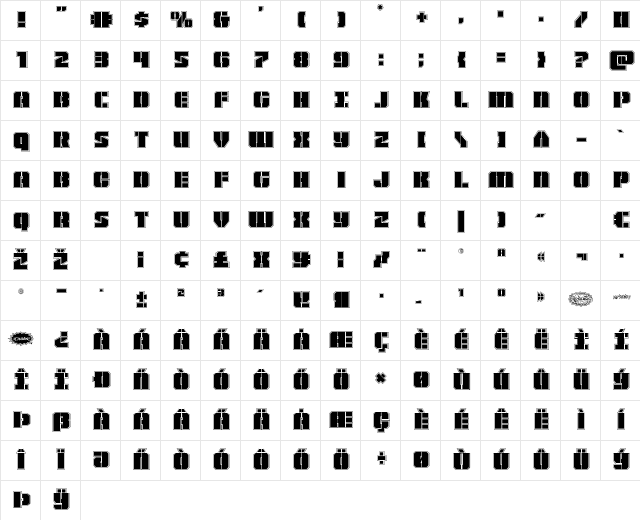
Complete Warp Thruster Academy Regular glyph index. Displaying only characters natively supported by Warp Thruster Academy Regular font.
Warp Thruster Academy is a composed and adaptable typeface that performs quietly and consistently across a wide range of design contexts.